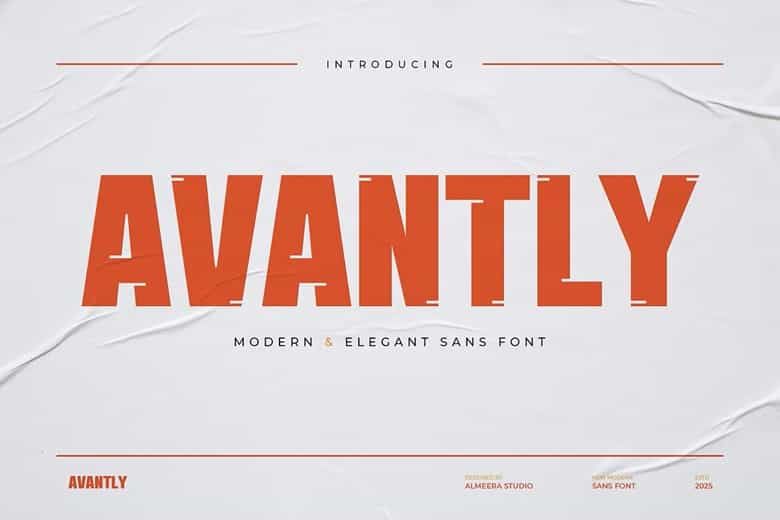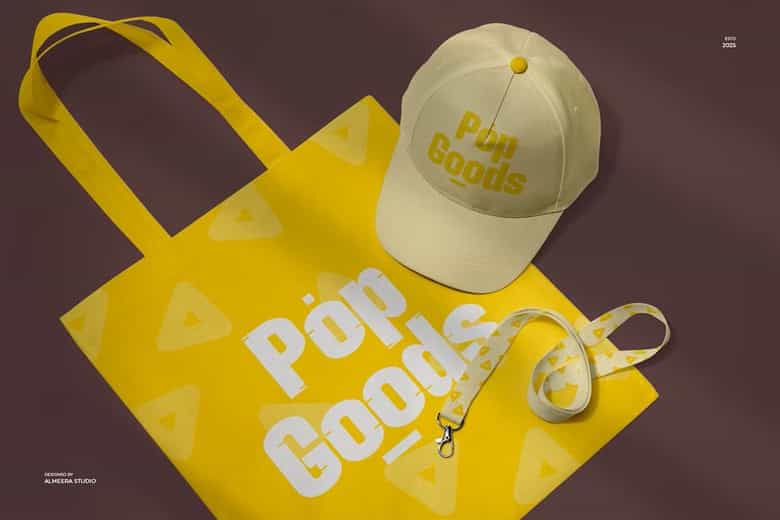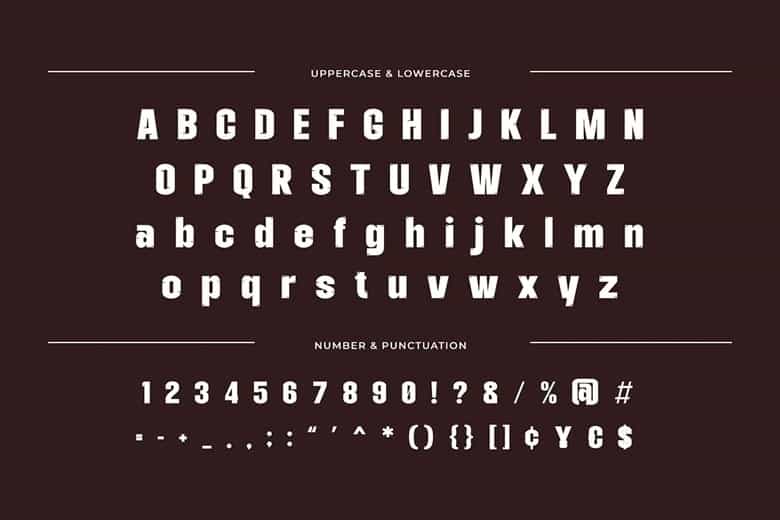
Avantly is a modern and elegant sans serif display typeface with smooth curves and a clear modern touch. The ideal choice to use in editorial spreads, magazine titles, and luxury branding, it is attention-getting and delicately overstated. Avantly communicates in the tongue of innovative and chic.